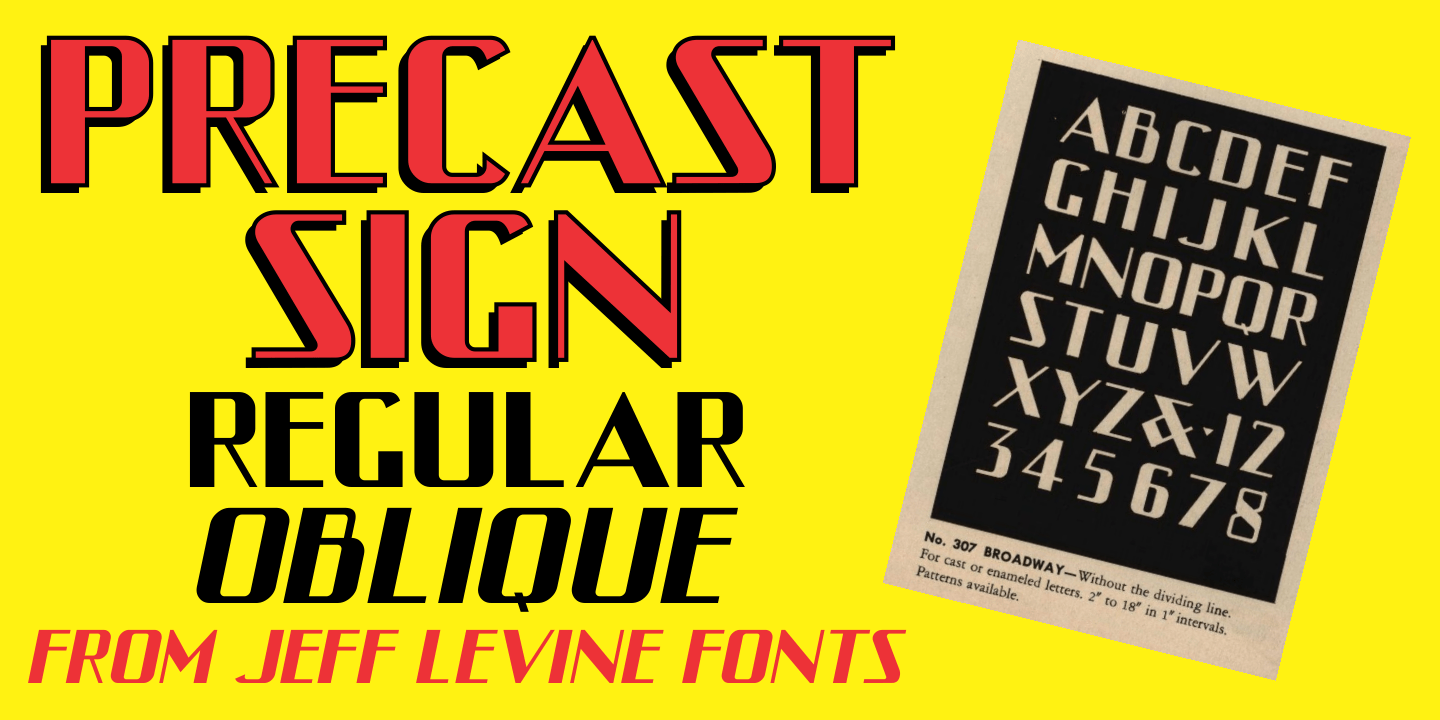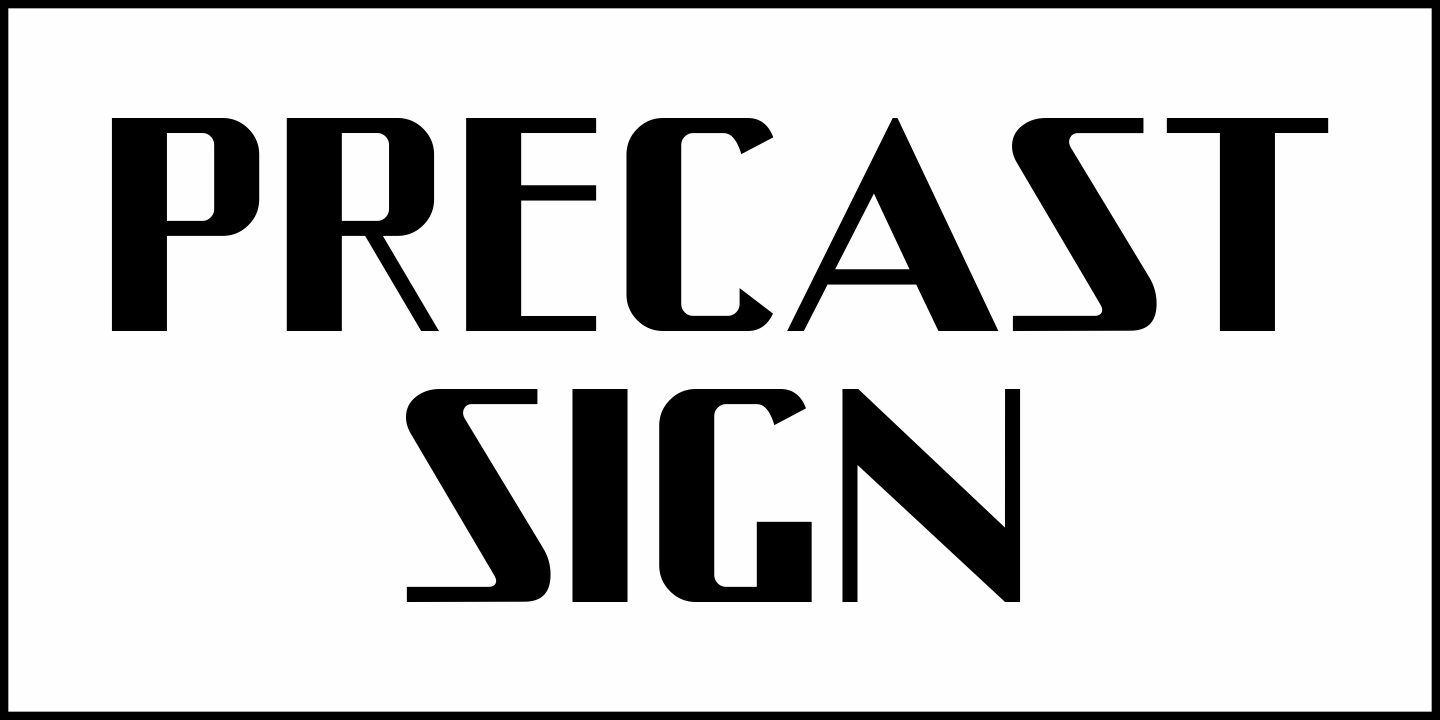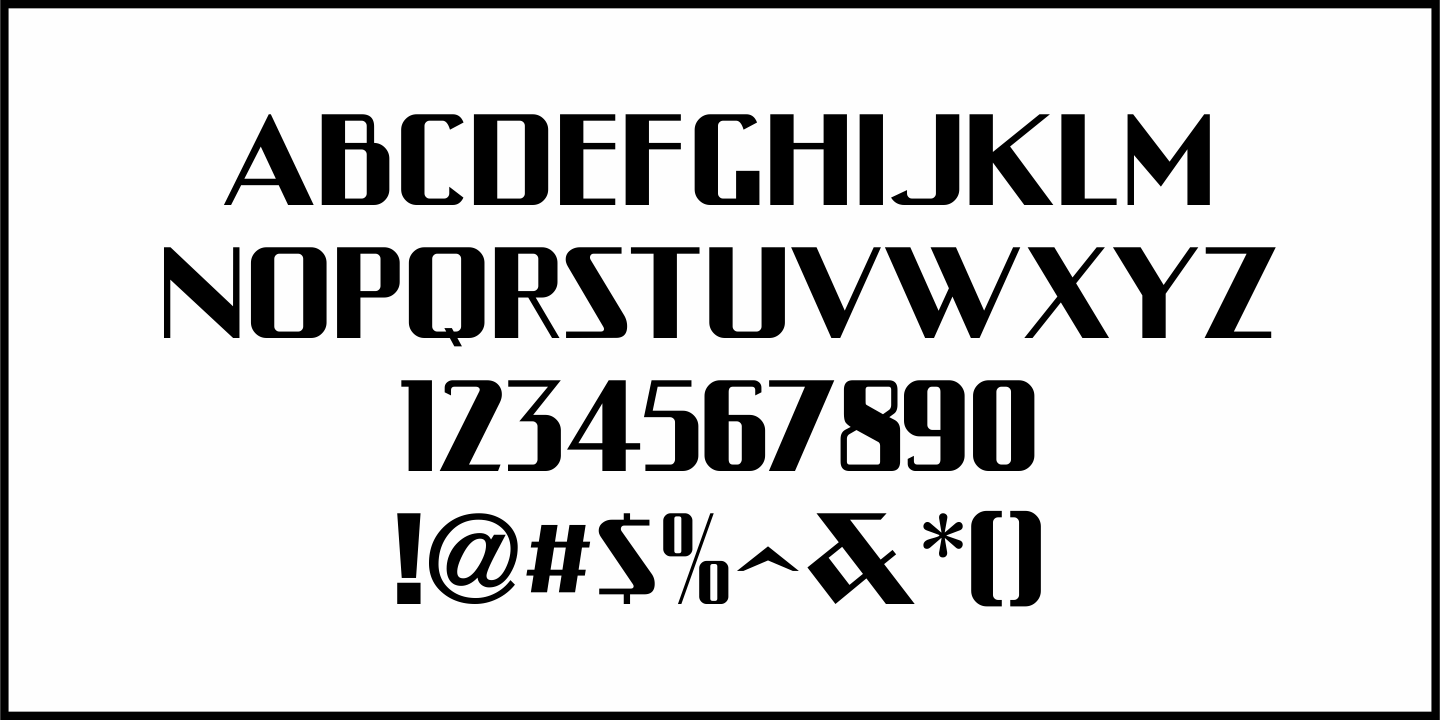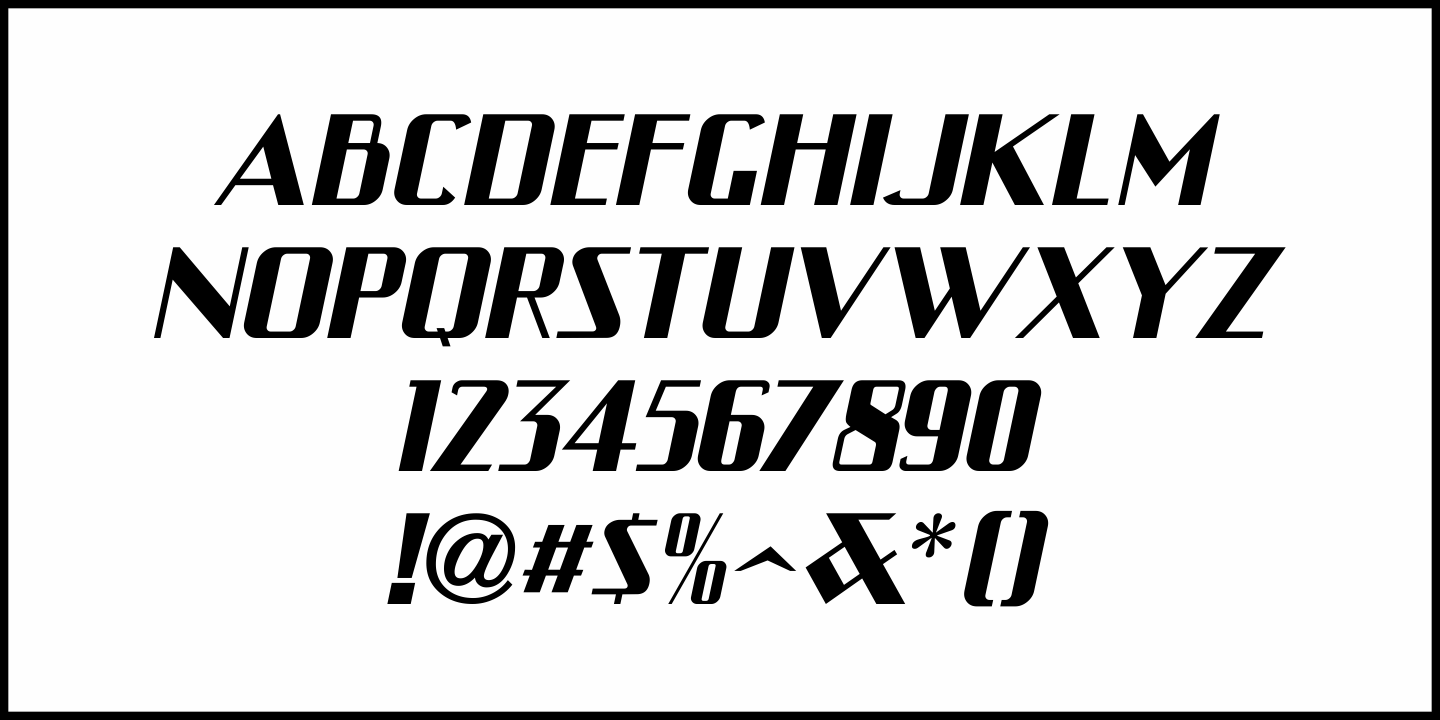
Precast Sign
In the 1960 sales booklet for Ralph Watkins Metalcraft is a series of alphabets to choose from for custom-made metal exterior signage.
One design stood out - an eccentric version of classic thick-and-thin Art Deco lettering.  Possibly designed years before (as Ralph Watkins Metalcraft was a long-established Chicago sign company), the uniqueness of this type design inspired Precast Sign JNL - which is available in both regular and oblique versions.